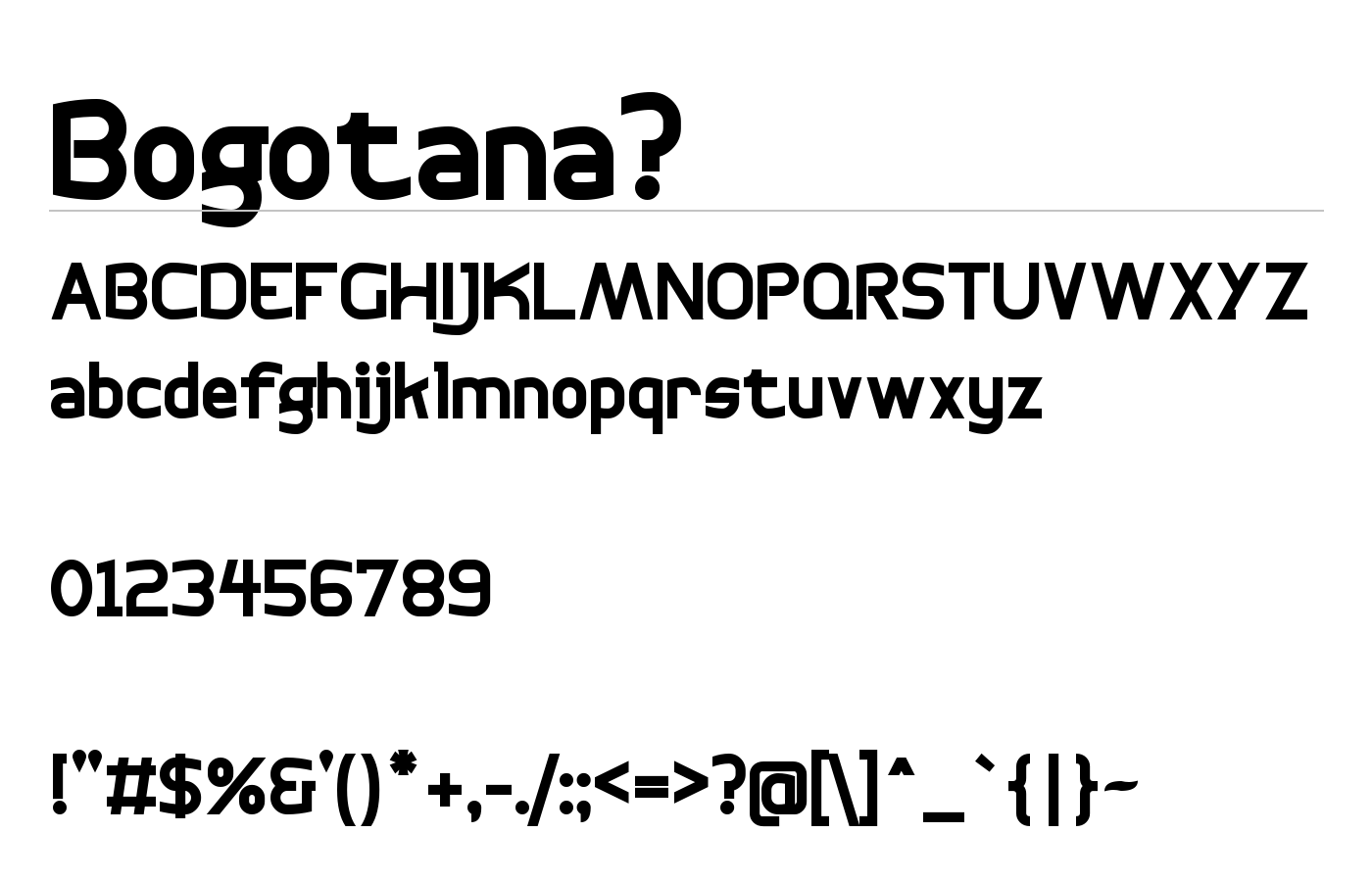
Bogotana™ is a bold, geometric sans serif font with a strong, modern character and a playful touch thanks to its unique letterforms and slightly irregular shapes. Its moderate contrast and clear, condensed structure make it versatile for eye-catching headlines, logos, and branding where a contemporary and confident impression is desired. This font works well in creative and dynamic contexts, adding personality without sacrificing readability.
Bogotana™ Font
About Bogotana™ Font